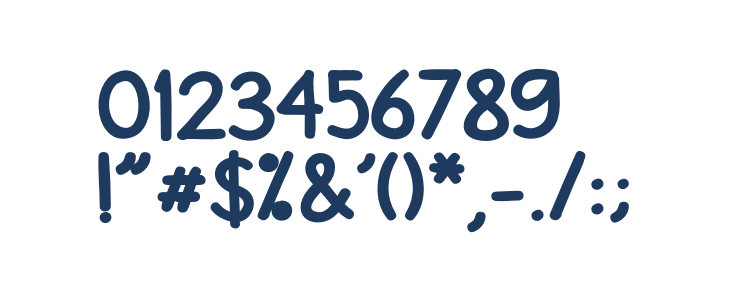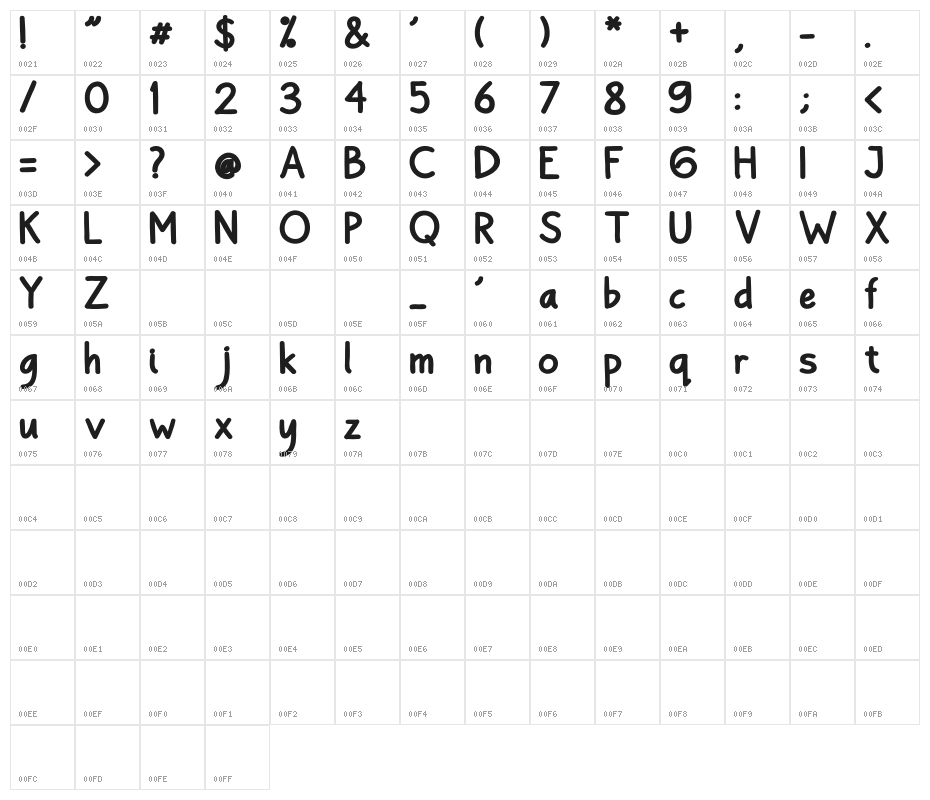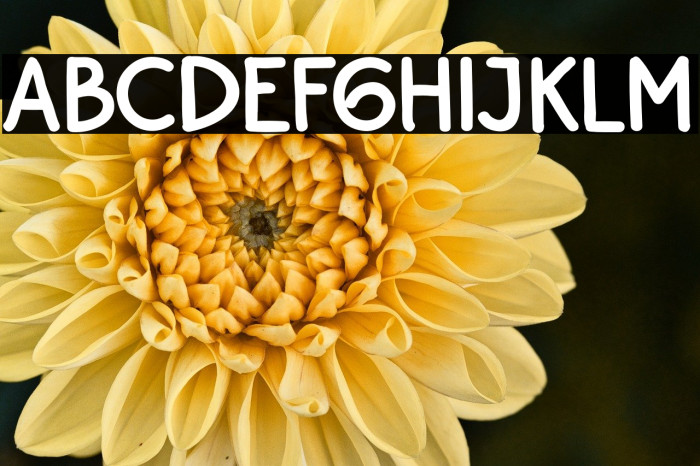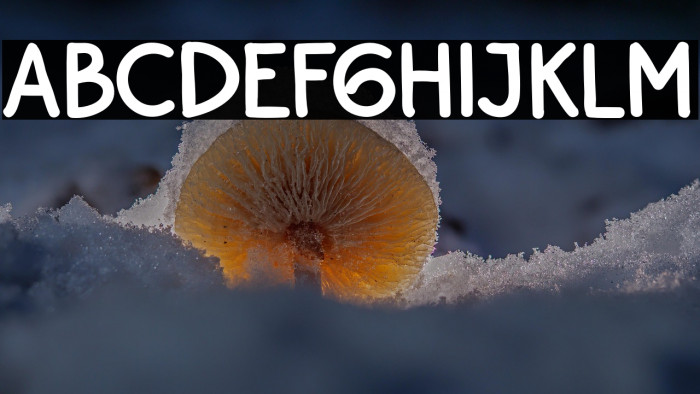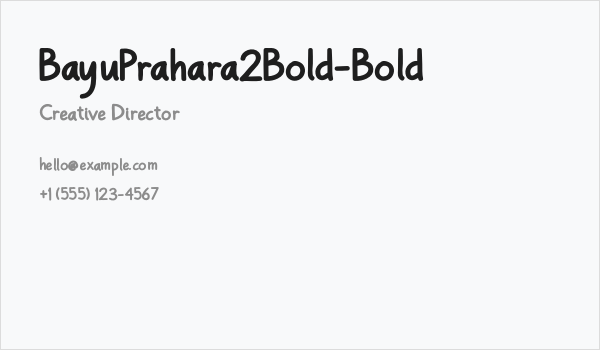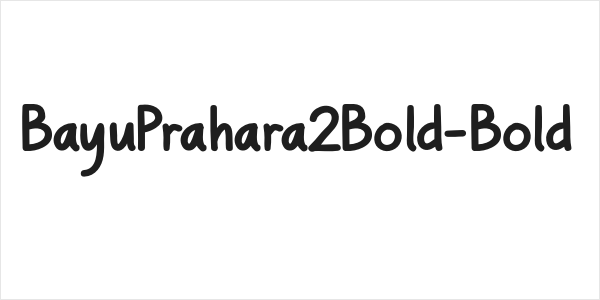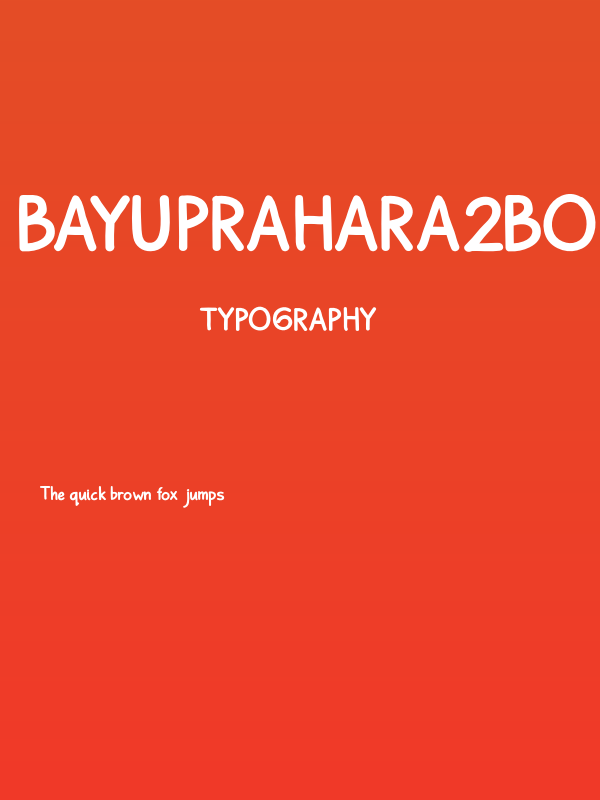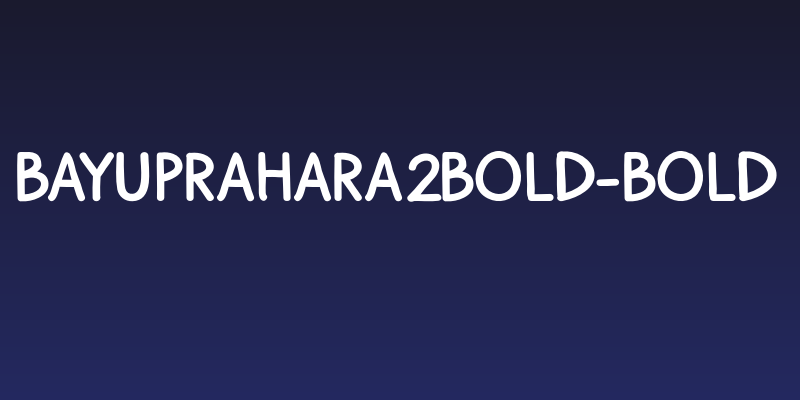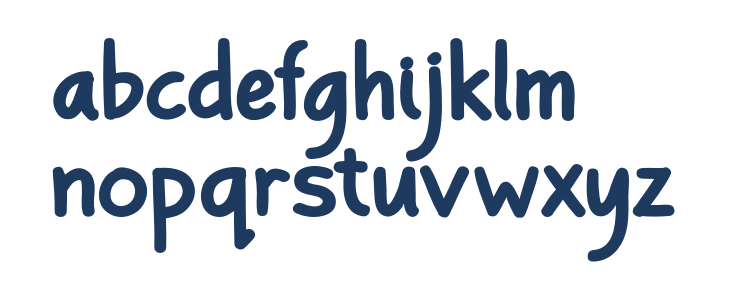
BayuPrahara2Bold-Bold Font
BayuPrahara2Bold-Bold Description
This font features a playful and bold style with rounded edges, giving it a friendly and approachable appearance. The characters are thick and uniform, providing a strong visual impact. The uppercase and lowercase letters maintain consistent proportions, while the numerals and special characters are designed to complement the overall aesthetic. The font's boldness makes it highly legible and suitable for attention-grabbing designs. Its rounded forms and smooth curves contribute to a modern yet casual feel, making it versatile for various creative applications.